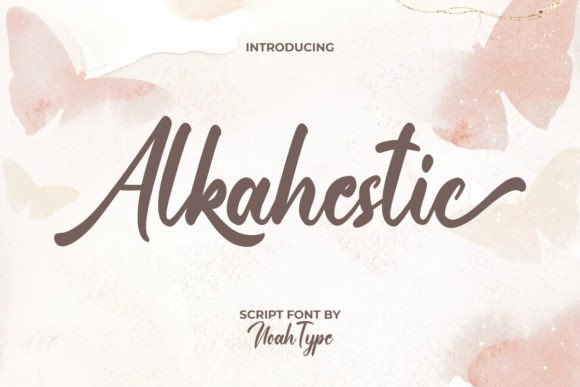
The Moment of Design Epiphany: When Alkahestic Font Stole My Heart
I recall working on a project for a luxury brand, tasked with creating an elegant invitation that exuded sophistication and refinement. As I scrolled through font after font, nothing seemed to capture the essence I was looking for – until I stumbled upon Alkahestic Font. Its thick, brush-like strokes and modern calligraphy style instantly resonated with me. I knew right then and there that I had found the perfect fit for my design.
What I Love About Alkahestic Font ✨
• 💫 Stunningly beautiful and elegant, perfect for luxury brands and high-end designs
• ✅ Highly versatile, suitable for a wide range of projects from brochures to websites
• 🎨 Thick brush strokes that add a touch of sophistication and creativity to any design
• 🔍 Carefully crafted to produce beautiful designs with precise lines and curves
While Alkahestic Font is an exceptional choice for many design projects, there are a few minor considerations to keep in mind:
• 🤔 May not be the best fit for very small font sizes or body text, as the thick strokes can become overwhelming
• ⚠️ Limited availability of certain characters or glyphs, which may require additional design workarounds
The Designer Inspiration Behind Alkahestic Font
Alkahestic Font was crafted with passion and dedication by a talented designer who sought to create a modern, calligraphic script that exudes elegance and sophistication. Inspired by traditional calligraphy techniques and modern design trends, Alkahestic Font is the perfect blend of classic and contemporary styles.
Font Name Alkahestic Font
Author NoahType
Q: What type of projects is Alkahestic Font best suited for?
A: Alkahestic Font is highly versatile and can be used for a wide range of projects, including brochures, business cards, custom designs, invitations, labels, magazines, menus, posters, product packaging, quotes, and websites.
Q: Is Alkahestic Font suitable for body text or small font sizes?
A: While Alkahestic Font is stunningly beautiful, it may not be the best fit for very small font sizes or body text, as the thick strokes can become overwhelming. It’s best used for headlines, titles, or larger text elements.